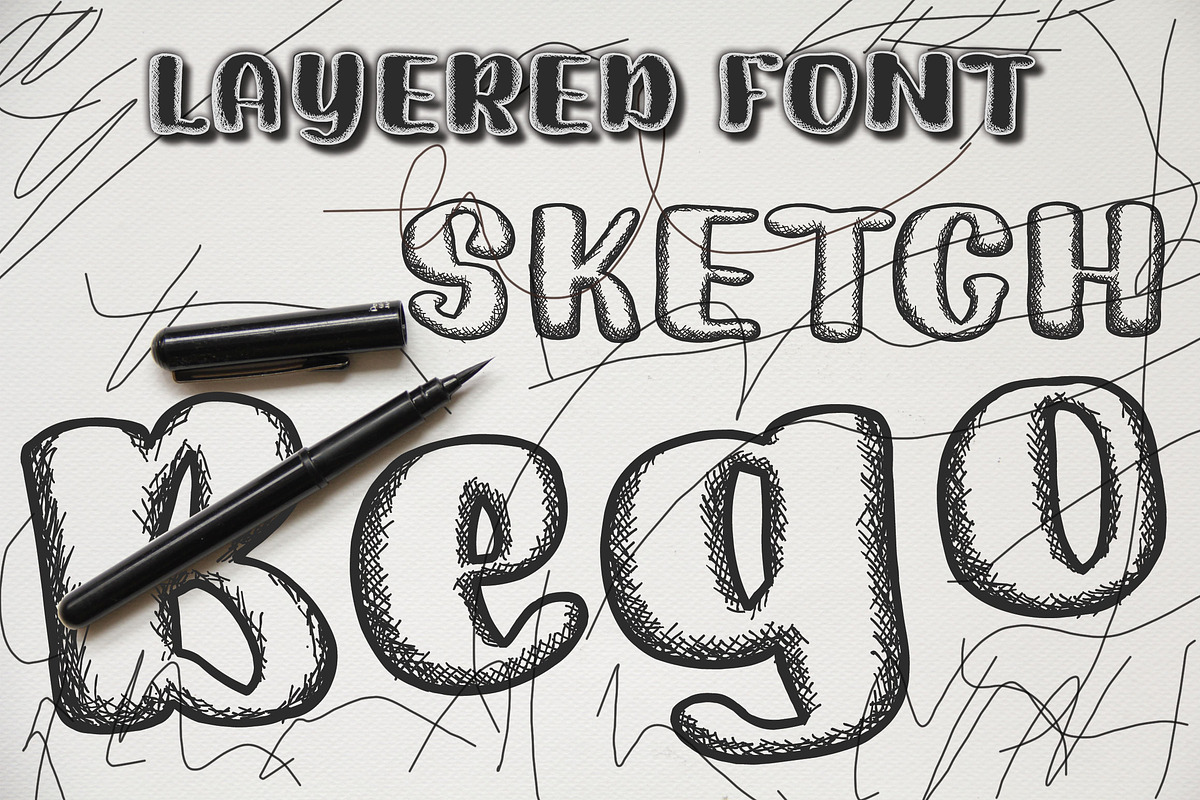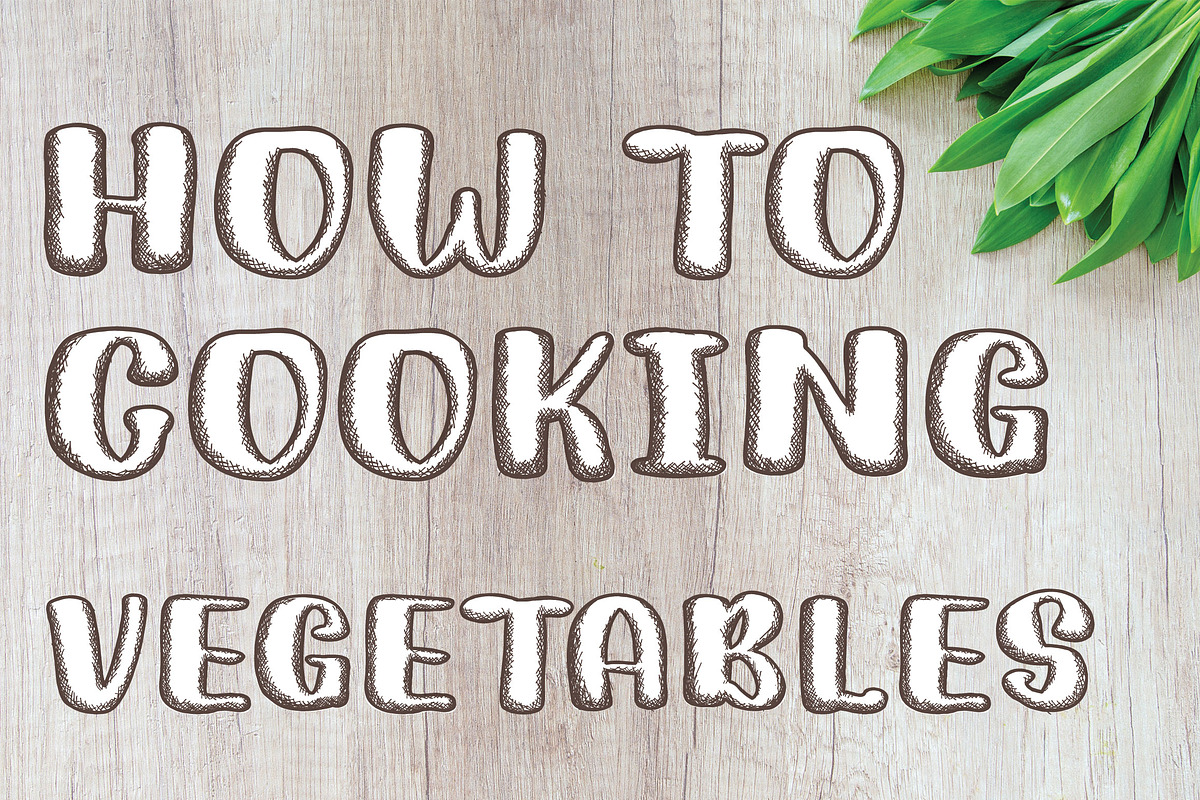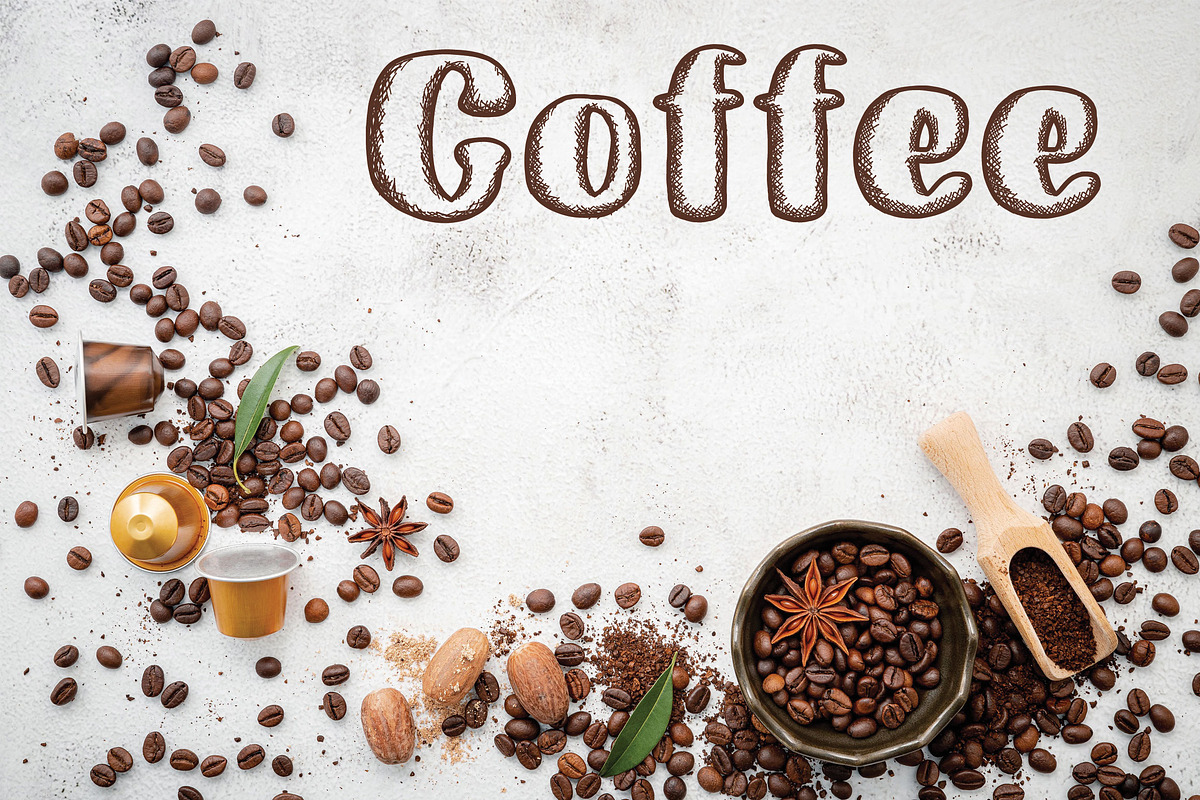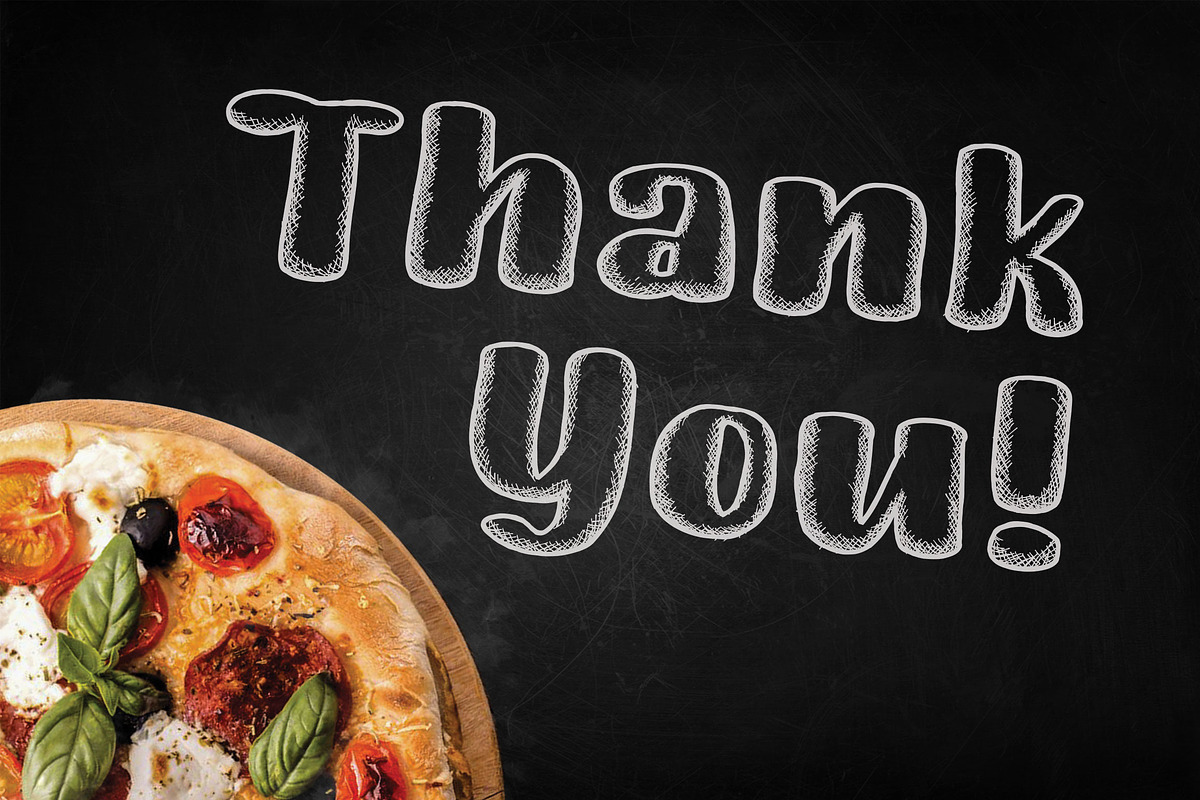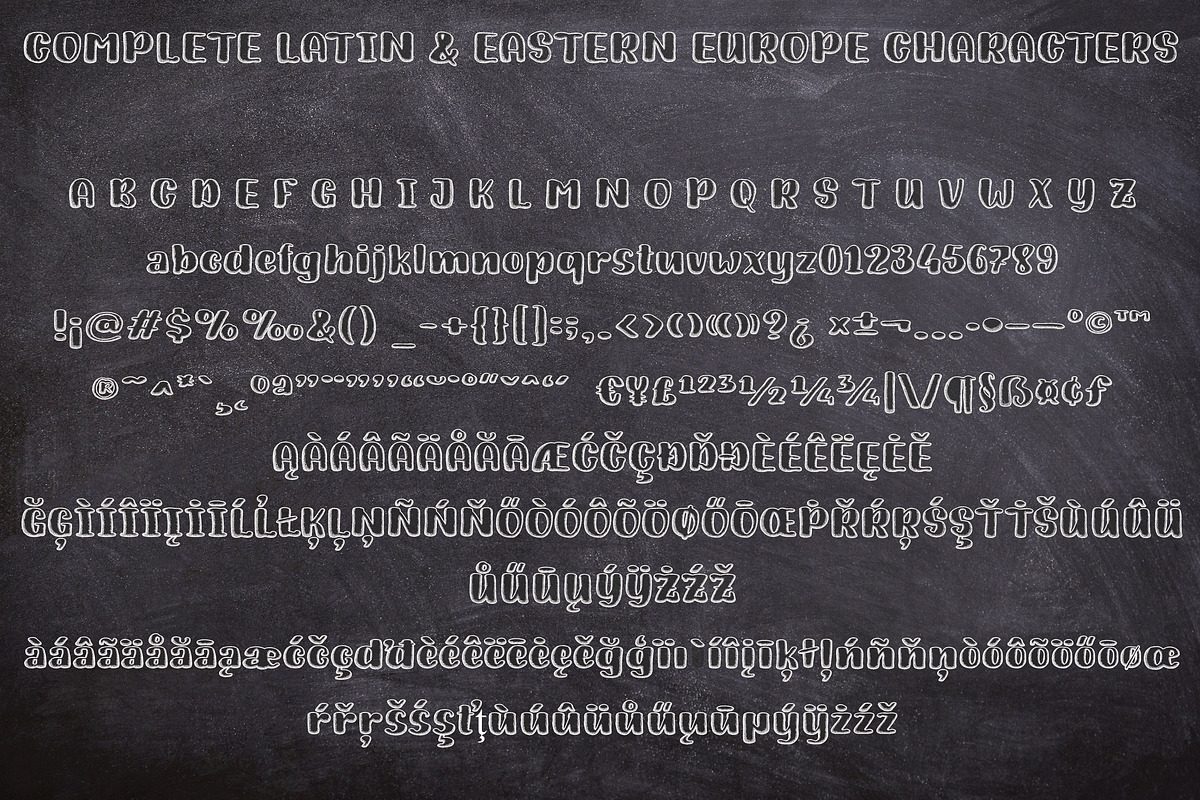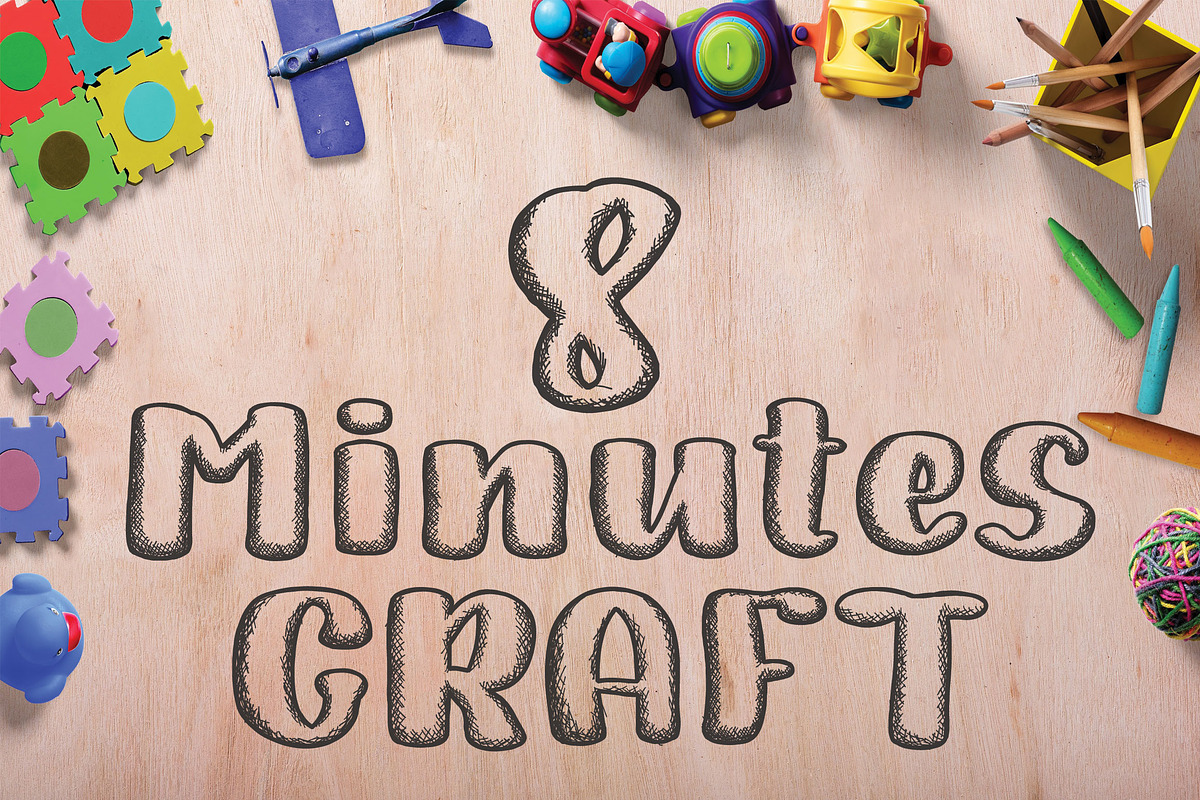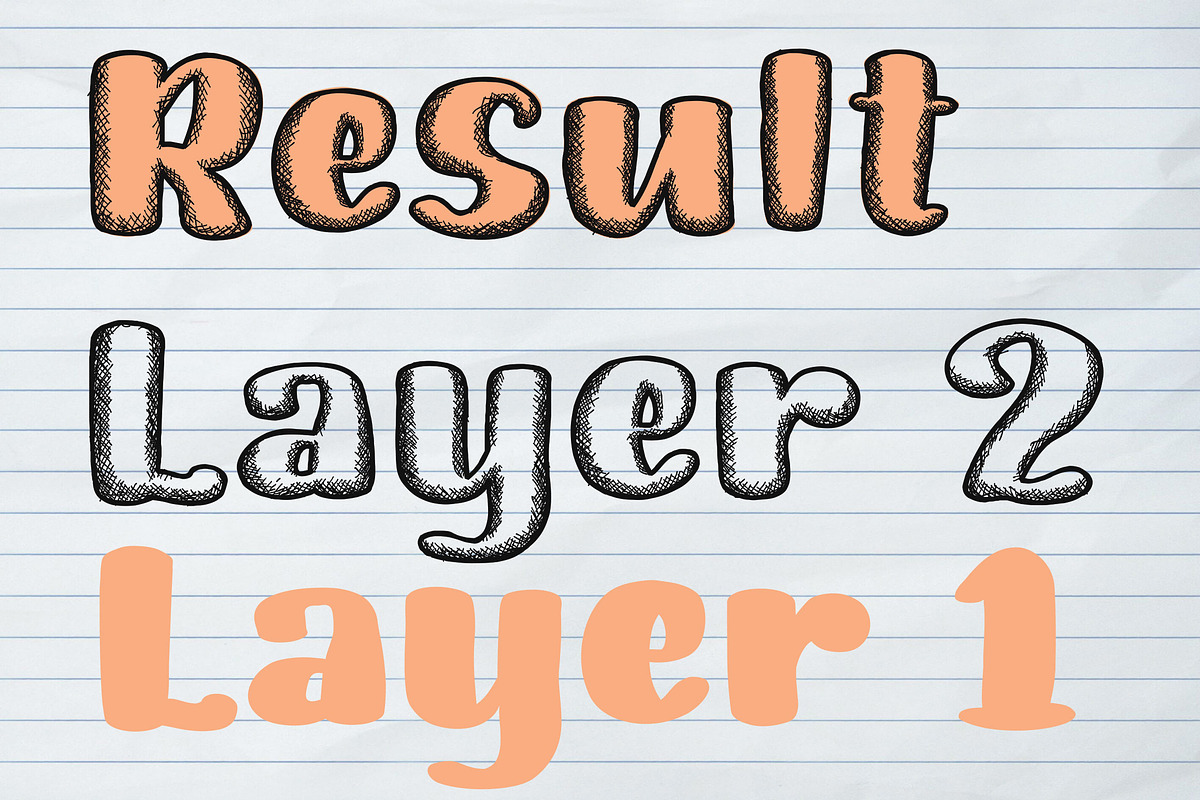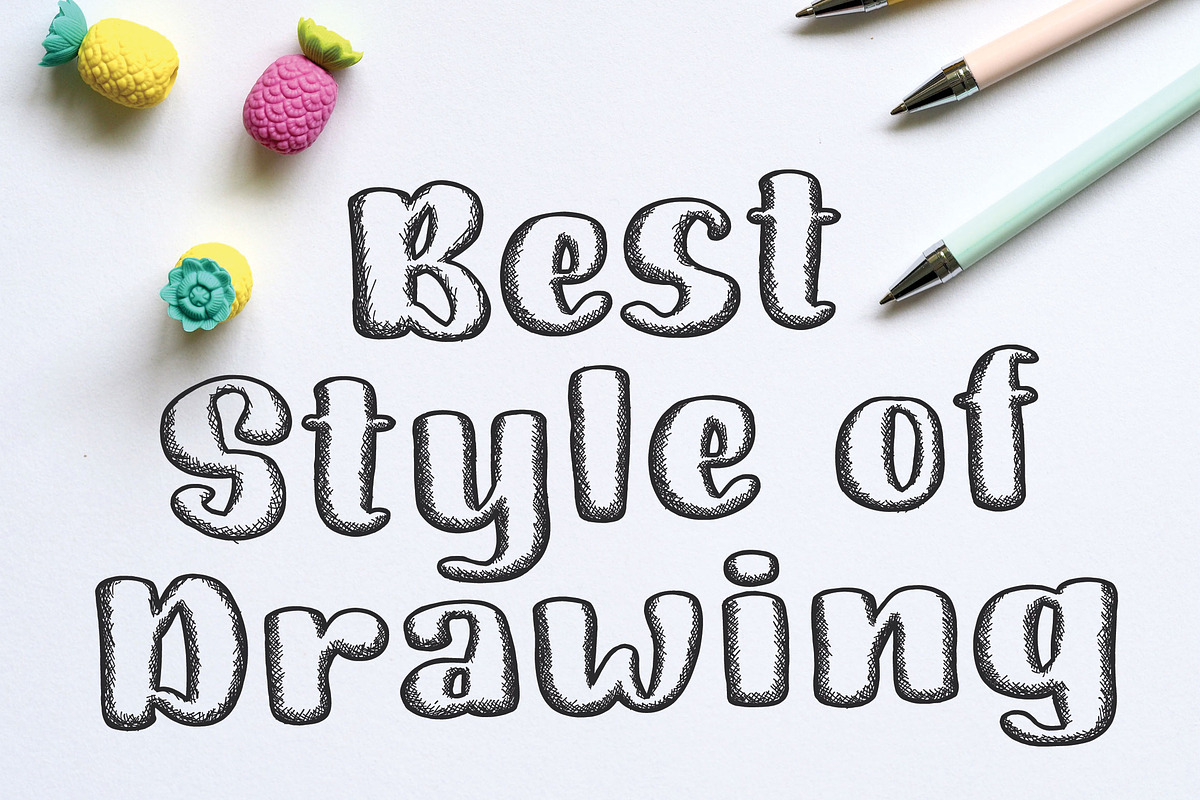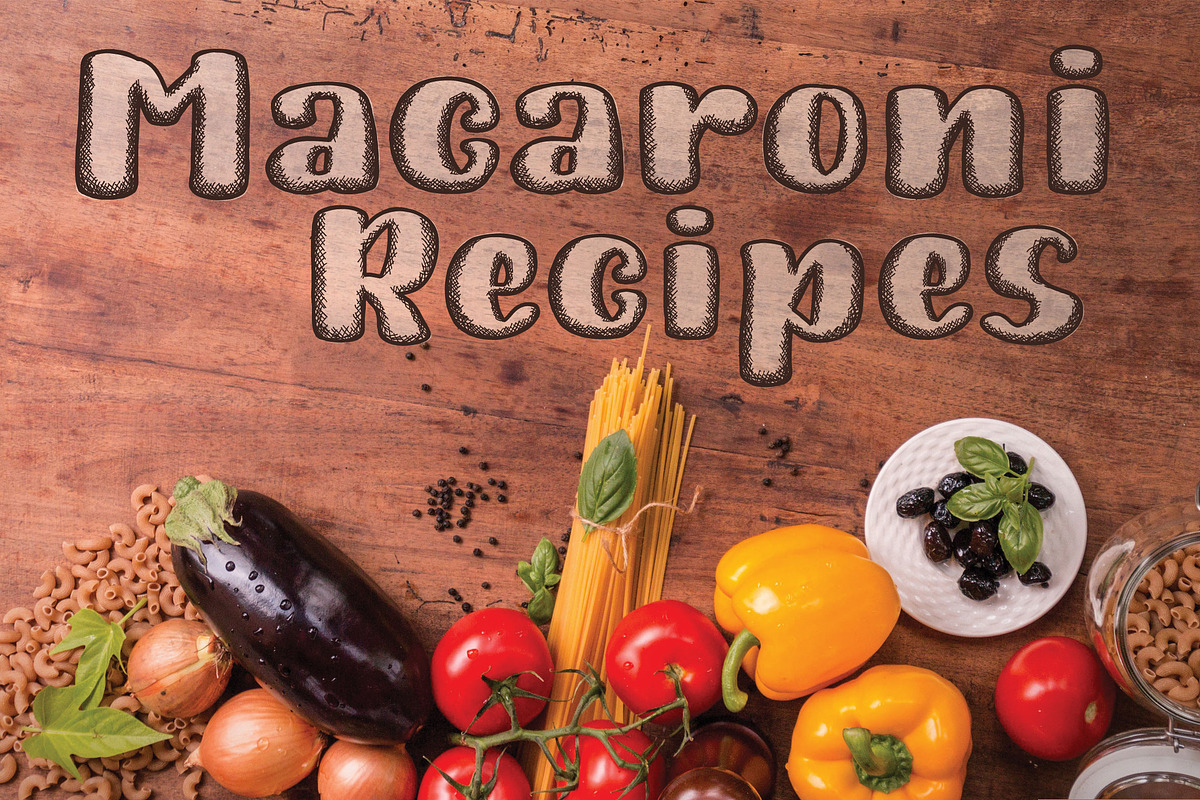
Sketch Bego | Handwritten Font
Introducing a new sketch style handwriting font.
This font will be great for making your designs look fun and unique, for books, magazine, flyer, YouTube thumbnail title, subtitle, etc.
This font have layered style font, one for fill, one for texture, place the texture on the top.
Featured with 307 glyphs, who supported to Basic Latin and Eastern Europe characters.